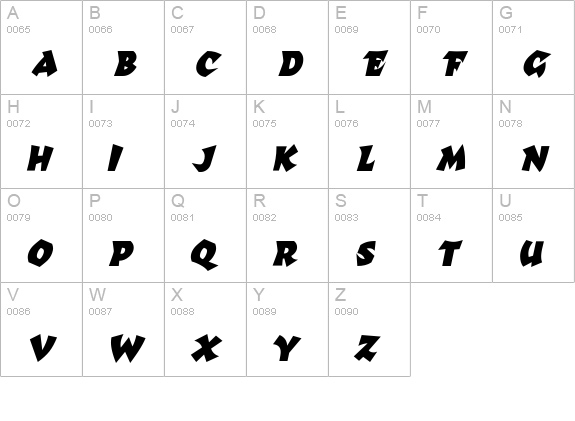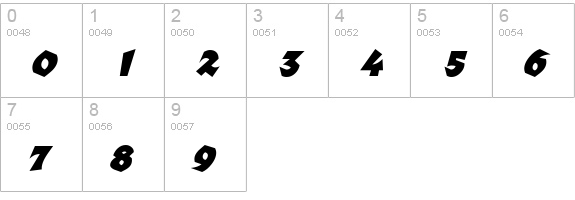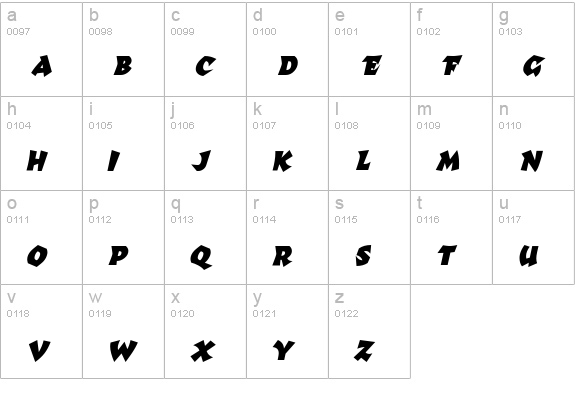
Richter Bold Italic Font Details
Richter Bold Italic is a strong, high-contrast, italic variant in the Richter typeface family \xE2\x80\x94 well suited to headlines, attention-grabbing titles, and strong calls-to-action.
Richter Bold Italic font is a striking and expressive typeface that exudes confidence and sophistication. With its bold and slanted design, this font commands attention and adds an extra touch of flair to any project. The bold weight of Richter Bold Italic font gives a powerful and impactful presence to headlines, titles, and emphasis, making it perfect for creating eye-catching designs. The italic slant adds a touch of elegance and dynamism, making it ideal for conveying a sense of movement or emphasis in body text or quotes. What sets Richter Bold Italic font apart is not only its stunning design but also its availability as a free download at FontsMarket.com. This means that designers, creatives, and typographic enthusiasts can enjoy the beauty and versatility of this font without any cost. It allows for unlimited creative exploration and experimentation, making it a valuable asset for both personal and commercial projects. Whether you're designing a logo, a website, a poster, or any other creative endeavor, Richter Bold Italic font will elevate your work and leave a lasting impression. Its unique combination of boldness and italics offers endless possibilities for making a statement and capturing the attention of your audience. Download Richter Bold Italic font for free at FontsMarket.com and experience the power, elegance, and versatility it brings to your designs. Unleash your creativity and let this font become an integral part of your typographic arsenal.